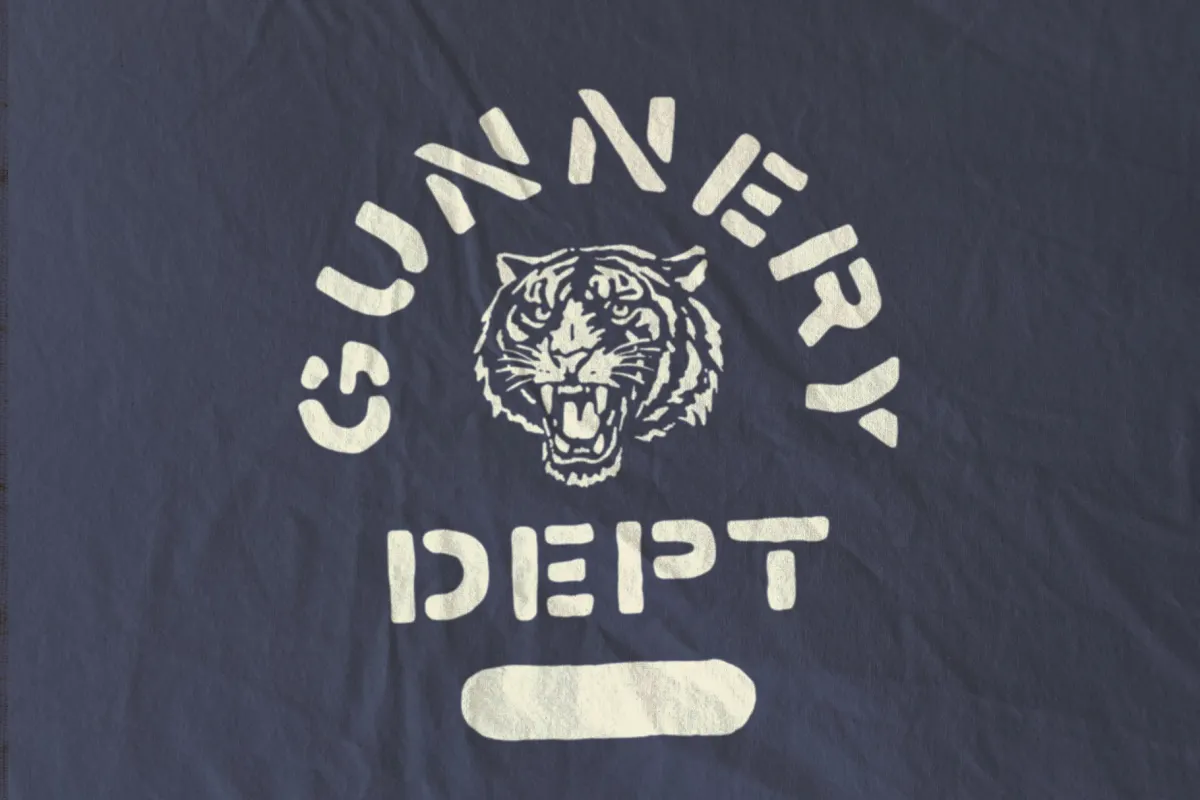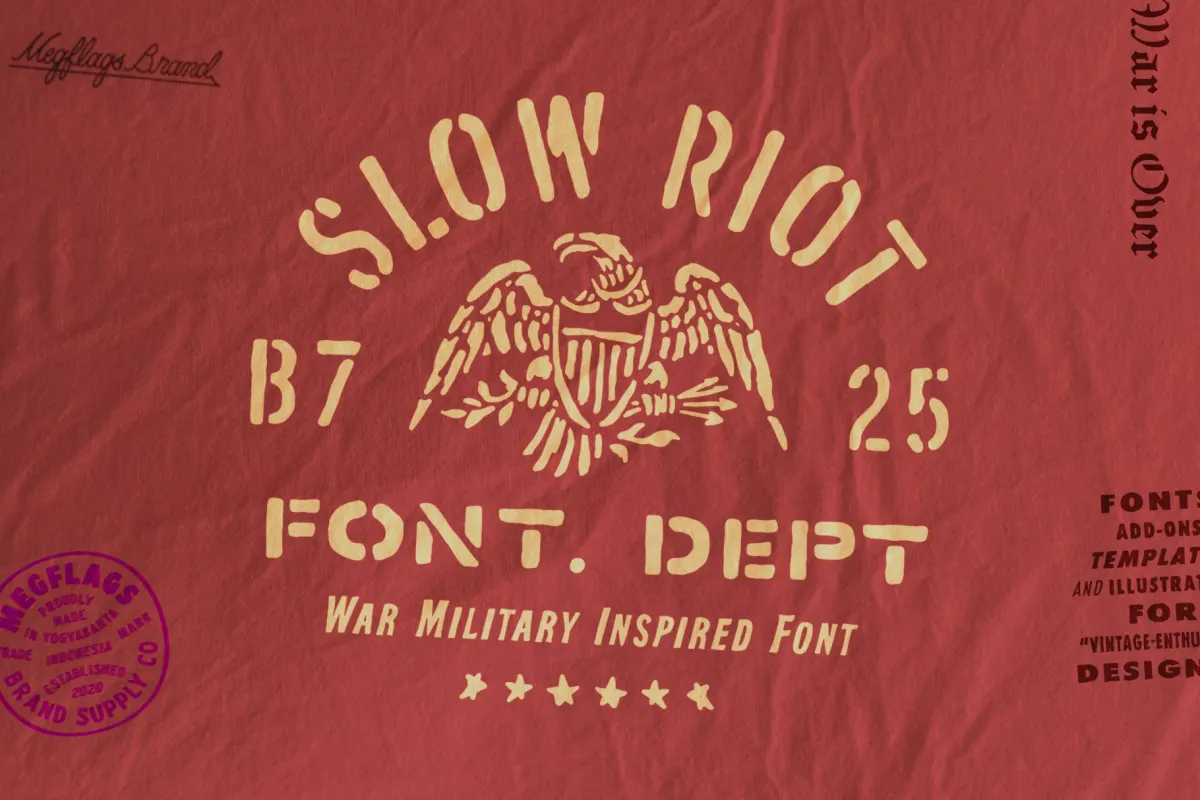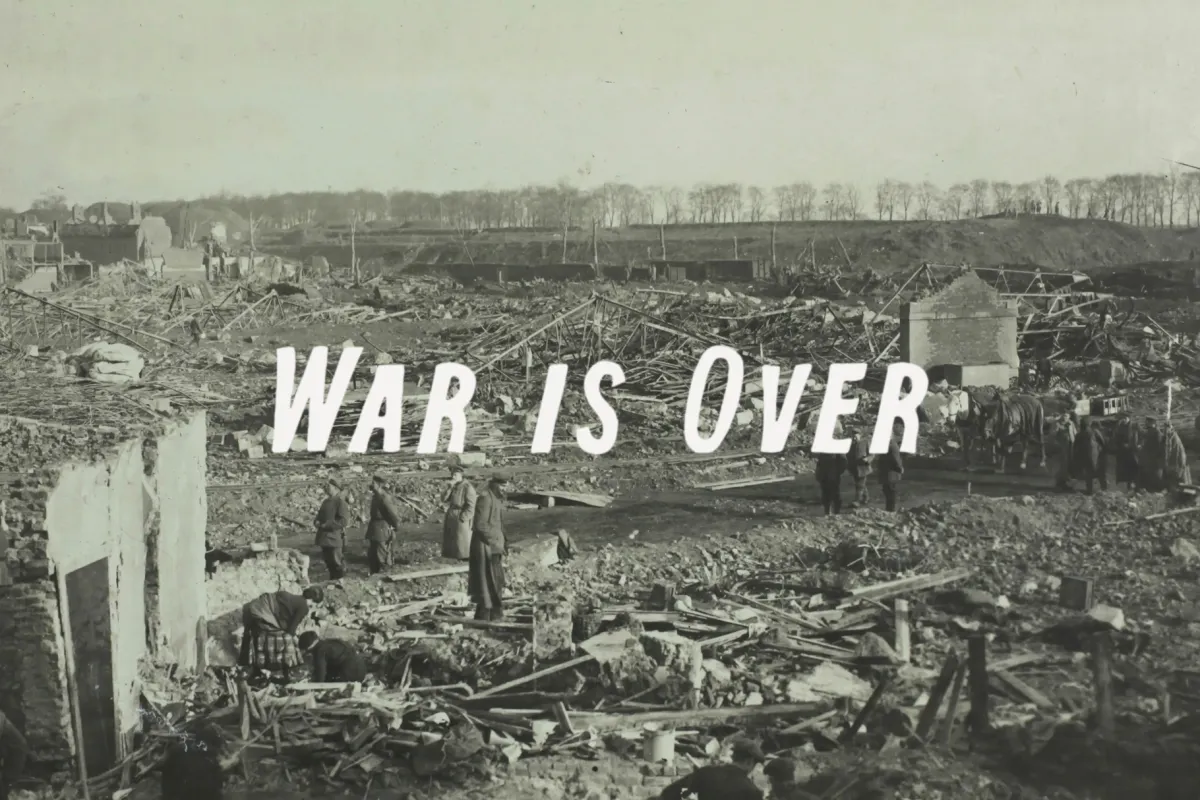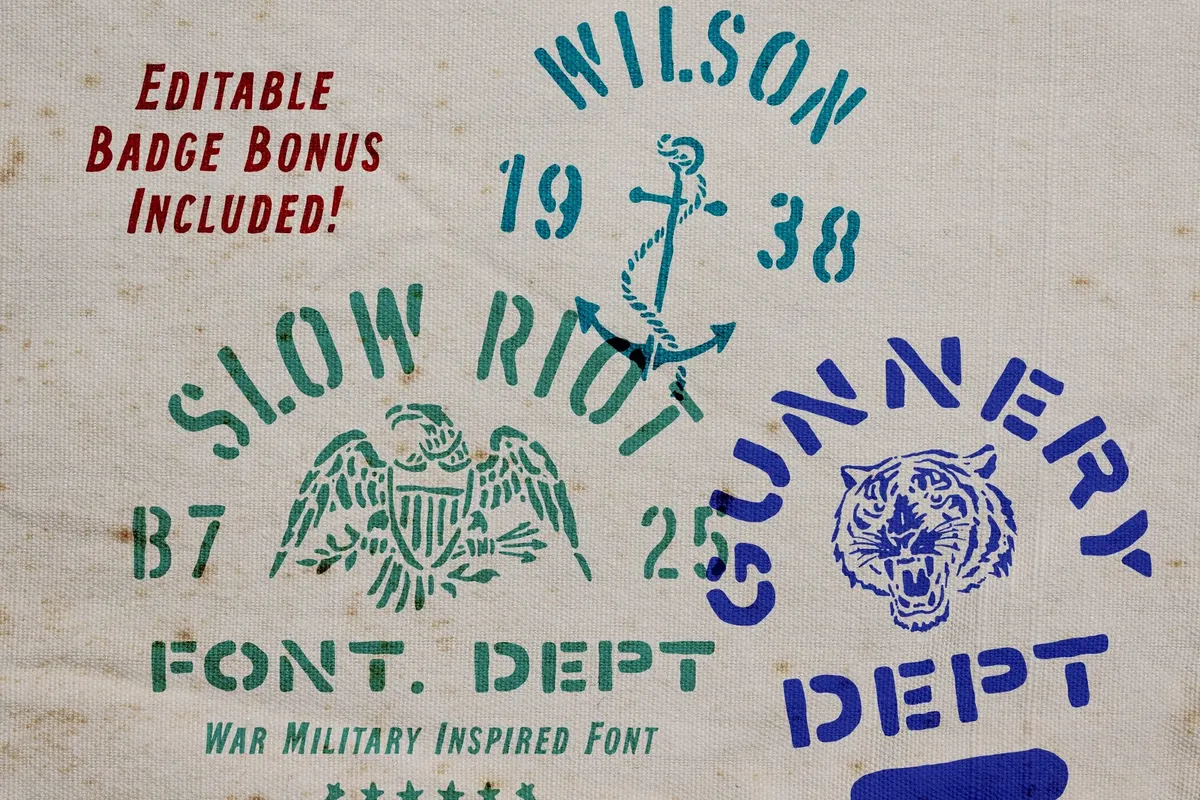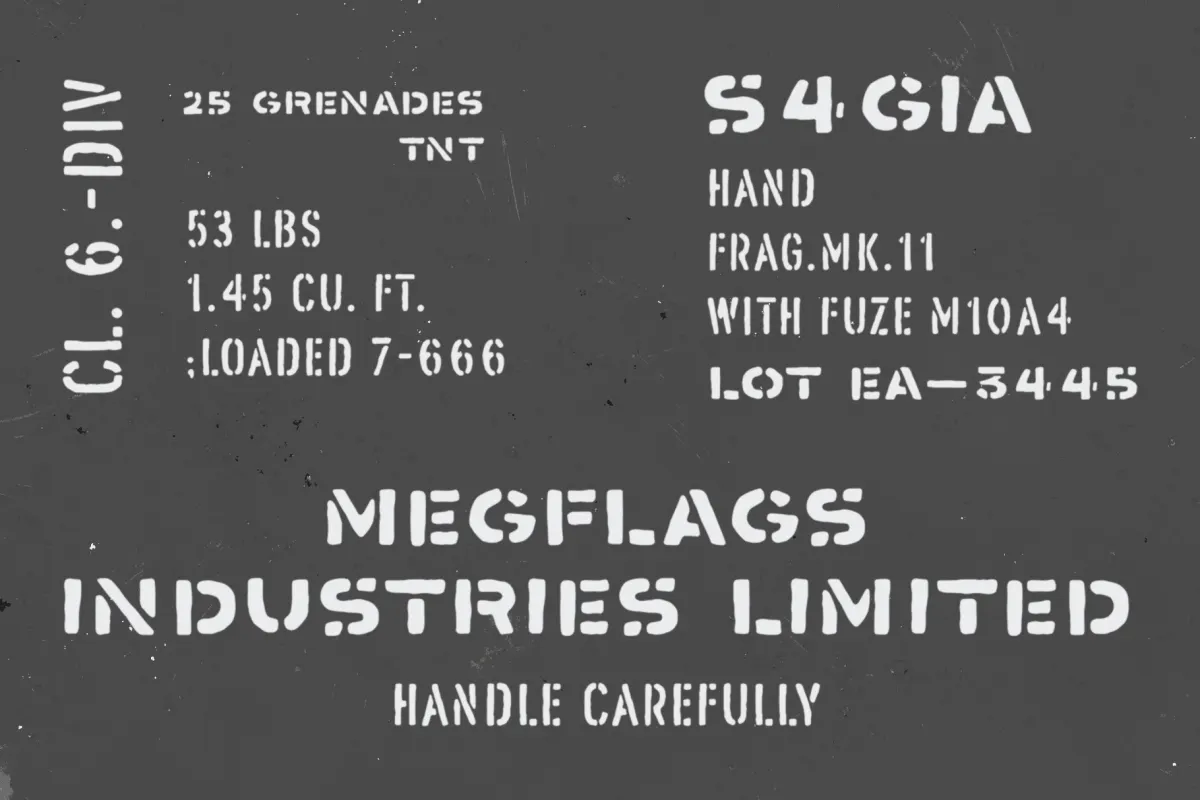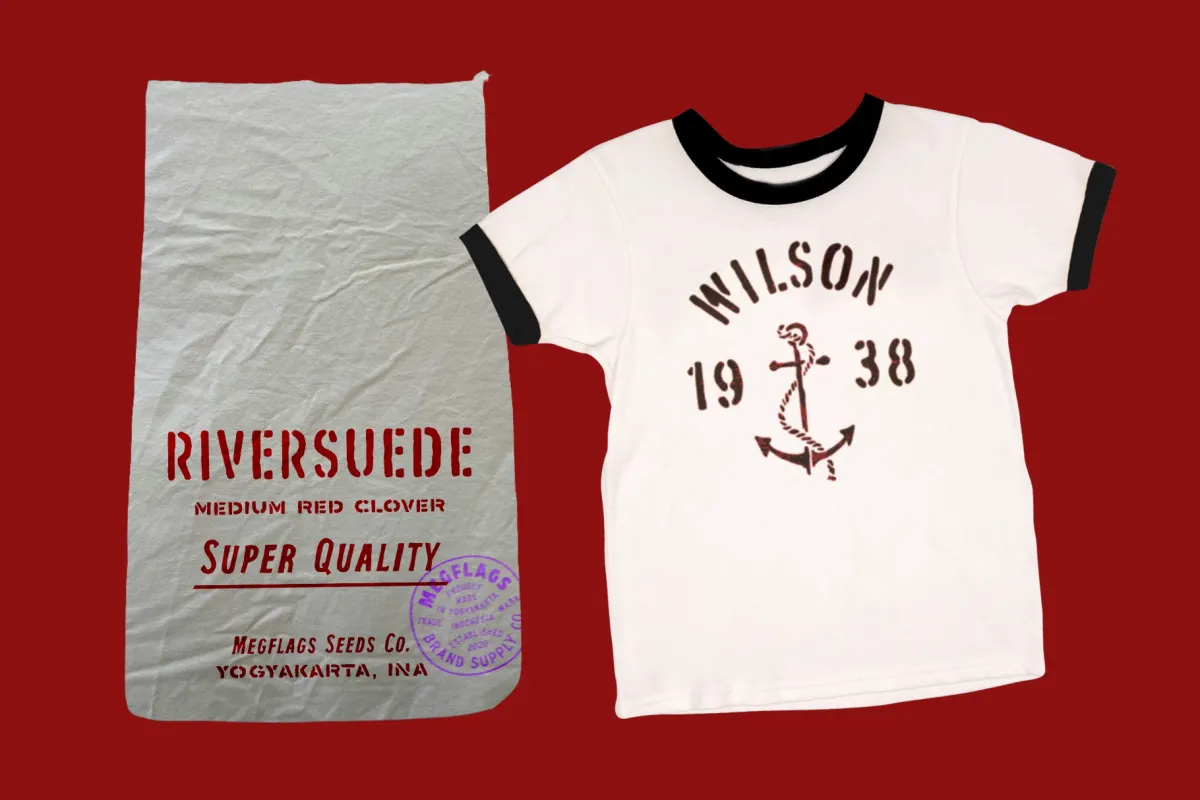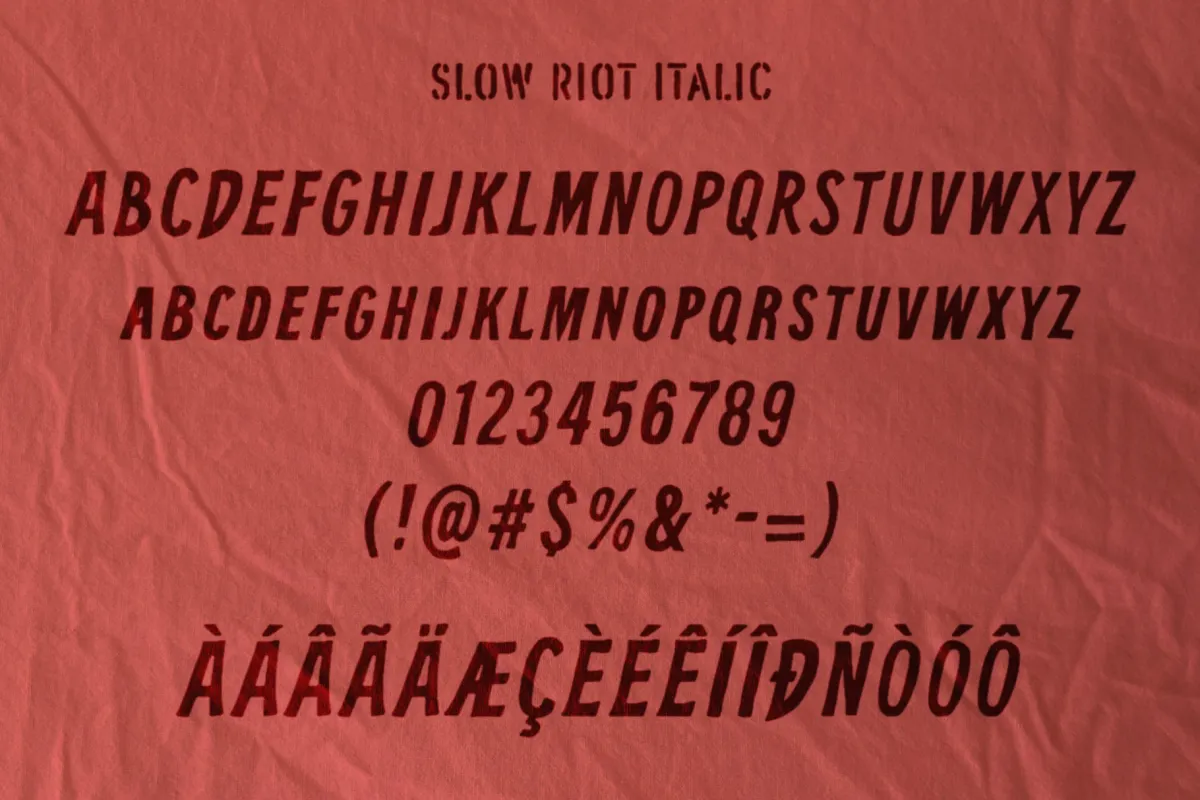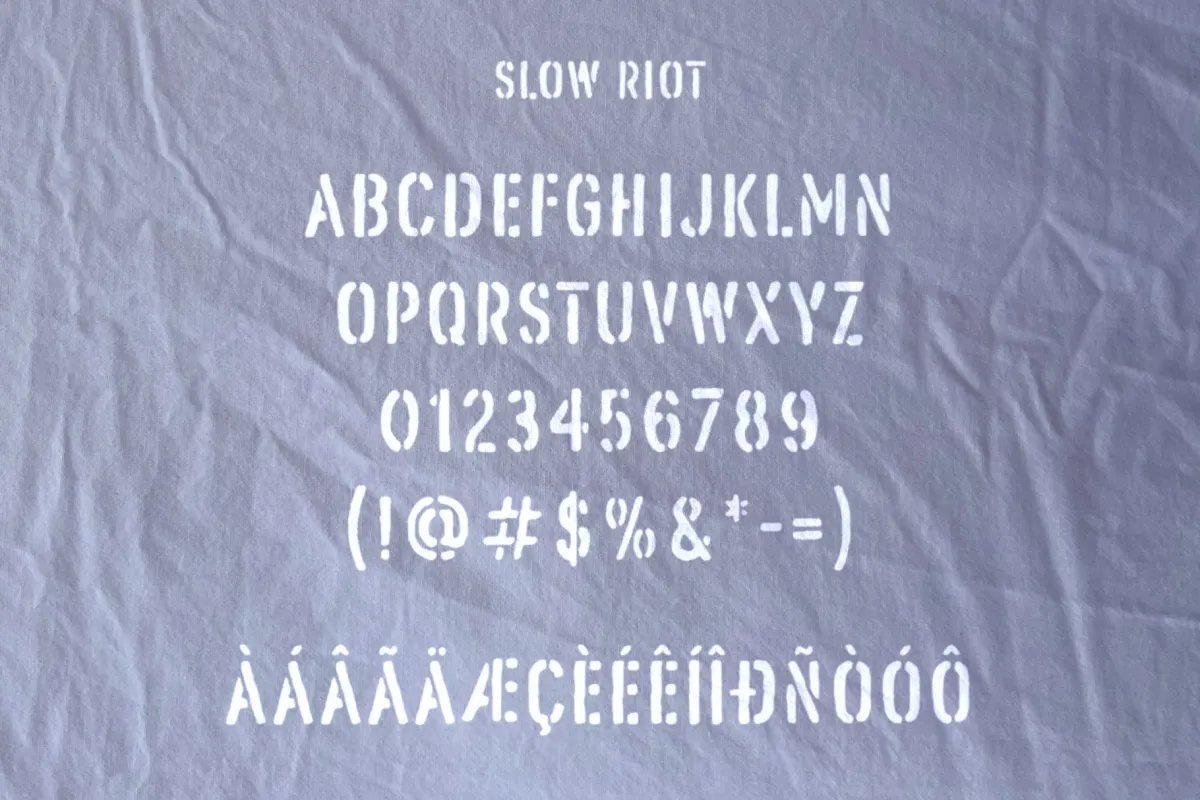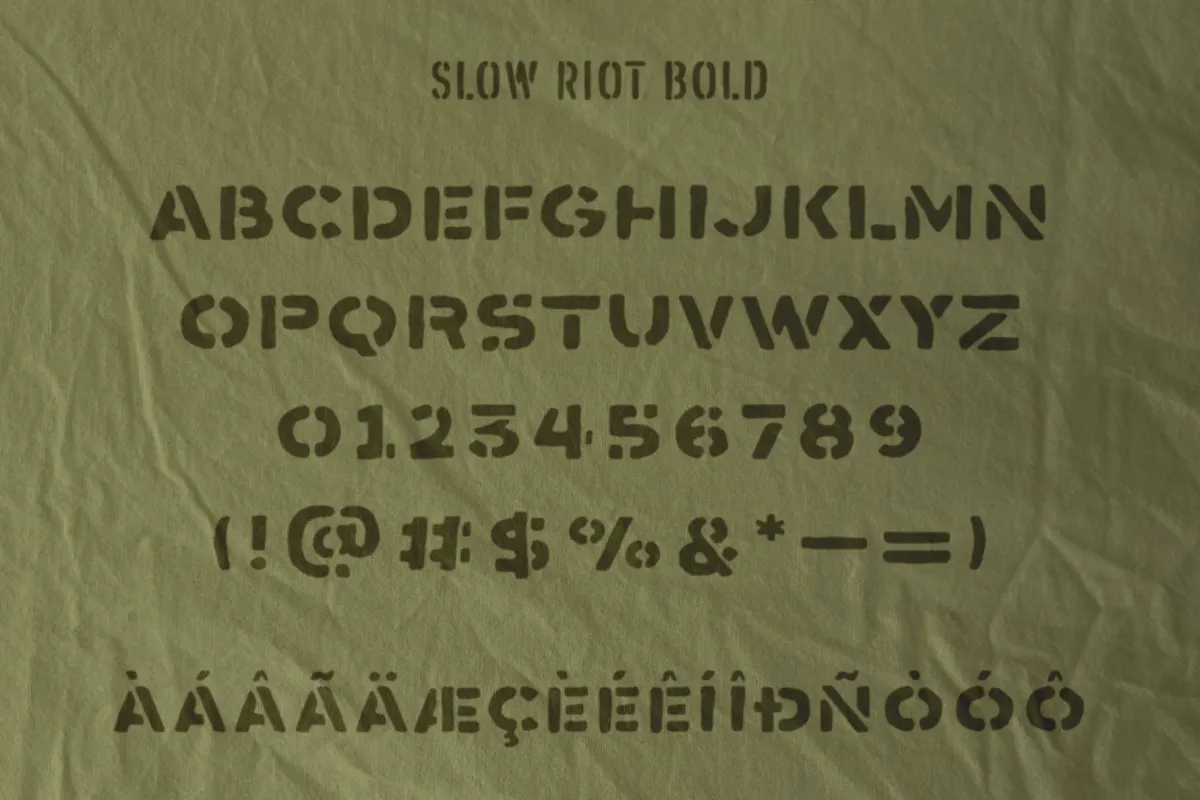
Slow Riot Stencil Fonts
SlowRiot
Slow Riot speaks in a wartime stencil voice from field manuals, shipping crates, and depot signage. It keeps the discipline through hard cutouts, narrow counters, and deliberate gaps — all reading like paint pushed through a worn template. The texture is printed and handled, for the sake of utilitarian, blunt, and oddly charismatic when it lands on paper, fabric, or corrugated board.
- Protest posters.
- Album and single artwork — titles, tracklists, back-cover credits.
- Streetwear graphics — chest stamps, sleeve hits, patch text, care labels.
- Packaging labels.
- Shipping and logistics styling — crate marks, fragile notes, handling icons, SKU bands.
- Editorial layouts — chapter openers, pull quotes, section dividers, infographics.
- Film and motion graphics — lower-thirds, warning slates, dossier screens, title cards.
- Event collateral — gig flyers, ticket stubs, wristbands, venue wayfinding.
- Brand systems with an industrial edge — badges, secondary marks, promo stamps.
- Museum and gallery signage — exhibit titles, placards, directional panels.
- 3 styles: Regular, Bold, and Italic.
- Uppercase alphabet with numerals, punctuation, and core symbols.
- Multilingual support shown through accented Latin characters.